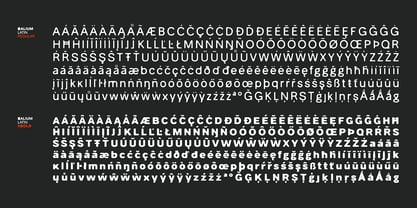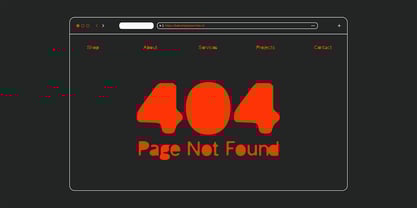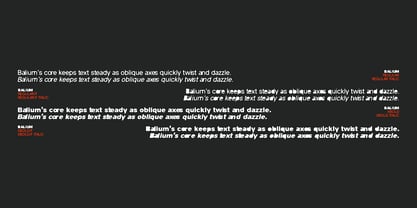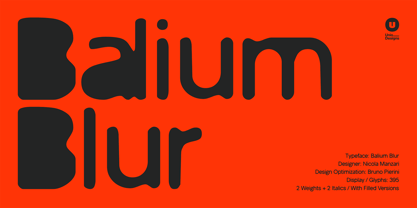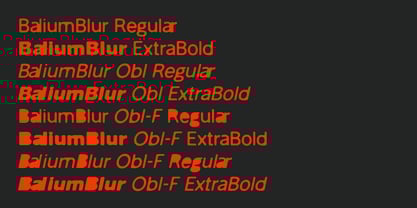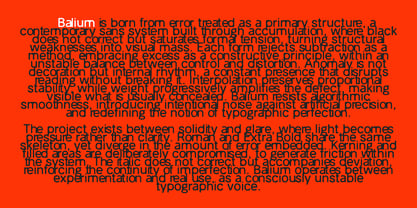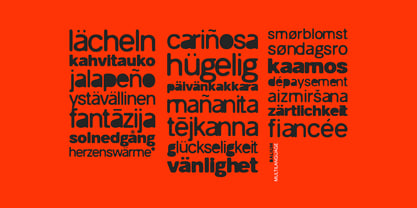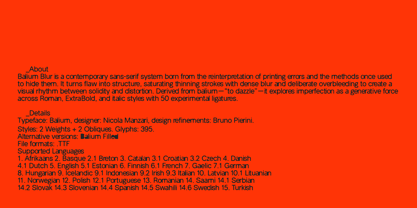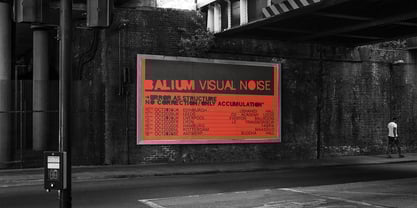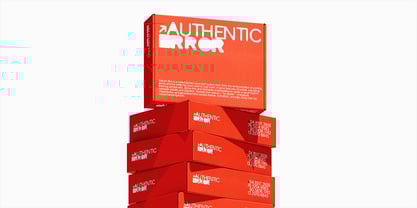
Balium Blur
The Balium Blur Font Family was designed by Nicola Manzari, Bruno Pierini and published by Unio Creative Solutions. Balium Blur contains 8 styles and family package options. More about this family
Balium Blur is a contemporary sans-serif type system that draws inspiration from the reinterpretation of printing errors and traditional techniques used to conceal them. It embraces error as an intentional flaw, where areas typically requiring stroke thinning are filled with bold black, exaggerated blur, and deliberate overbleeding. This approach creates a unique visual language that balances solidity and distortion, adding expressive noise to a culture increasingly defined by algorithmic precision. The name Balium is derived from the Latin word balium, linked to abbagliare—meaning to dazzle or overwhelm with brightness. This concept of glare informs the typeface’s design, where forms are constructed through accumulation rather than subtraction, transforming excess material into structure and error into a generative principle. The family features Roman and Extra Bold weights, showcasing a distinctive overprint effect. Across these styles, Balium Blur amplifies its anomalies, exploring imperfection through its filled style and matching italic counterparts. Additionally, it includes 50 discretionary ligatures derived from common letter bigrams, intentionally overbleeding the letterforms for an “inception” effect within the type system—an intriguing experiment. Balium Blur serves as a versatile yet distinctly experimental voice, seamlessly transitioning from headlines to interfaces while maintaining its character. It is designed for brands and designers who appreciate controlled imperfection, situated at the crossroads of contemporary typography, technology, and visual experimentation.